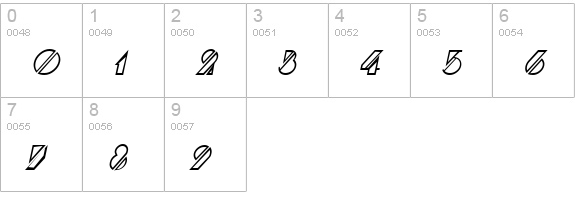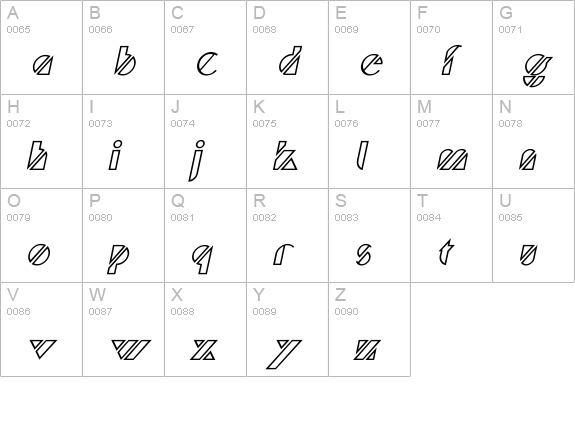
Trufflette Italic Font Details
Trufflette Italic is a distinctive, italic variant in the Trufflette typeface family \xE2\x80\x94 well suited to design and typography projects.
Introducing Trufflette Italic, a captivating and elegant font that exudes a sense of sophistication and charm. With its gracefully slanted and beautifully curved letterforms, Trufflette Italic adds a touch of flair to any project, making it perfect for both professional and personal use. This exquisite font is meticulously crafted to create a harmonious balance between modernity and classic elegance. Its sleek and slender strokes effortlessly flow from one letter to another, creating a seamless and visually appealing appearance. Trufflette Italic is truly a feast for the eyes, capturing attention with its unique and captivating design. Whether you're creating a logo, branding materials, invitations, or any other creative project, Trufflette Italic offers versatility and style that can elevate your designs to new heights. Its italicized form adds a touch of drama and sophistication, making it ideal for adding emphasis and creating a lasting impression. And the best part? Trufflette Italic is freely available to download at FontsMarket.com! This means that you can enjoy the beauty and elegance of this stunning font without any constraints. Whether you're a professional designer or simply someone with a passion for creativity, Trufflette Italic is the perfect addition to your font collection. So, why wait? Discover the beauty of Trufflette Italic and bring a touch of elegance and sophistication to your designs. Download it for free today at FontsMarket.com and unlock a world of endless creativity and possibilities.